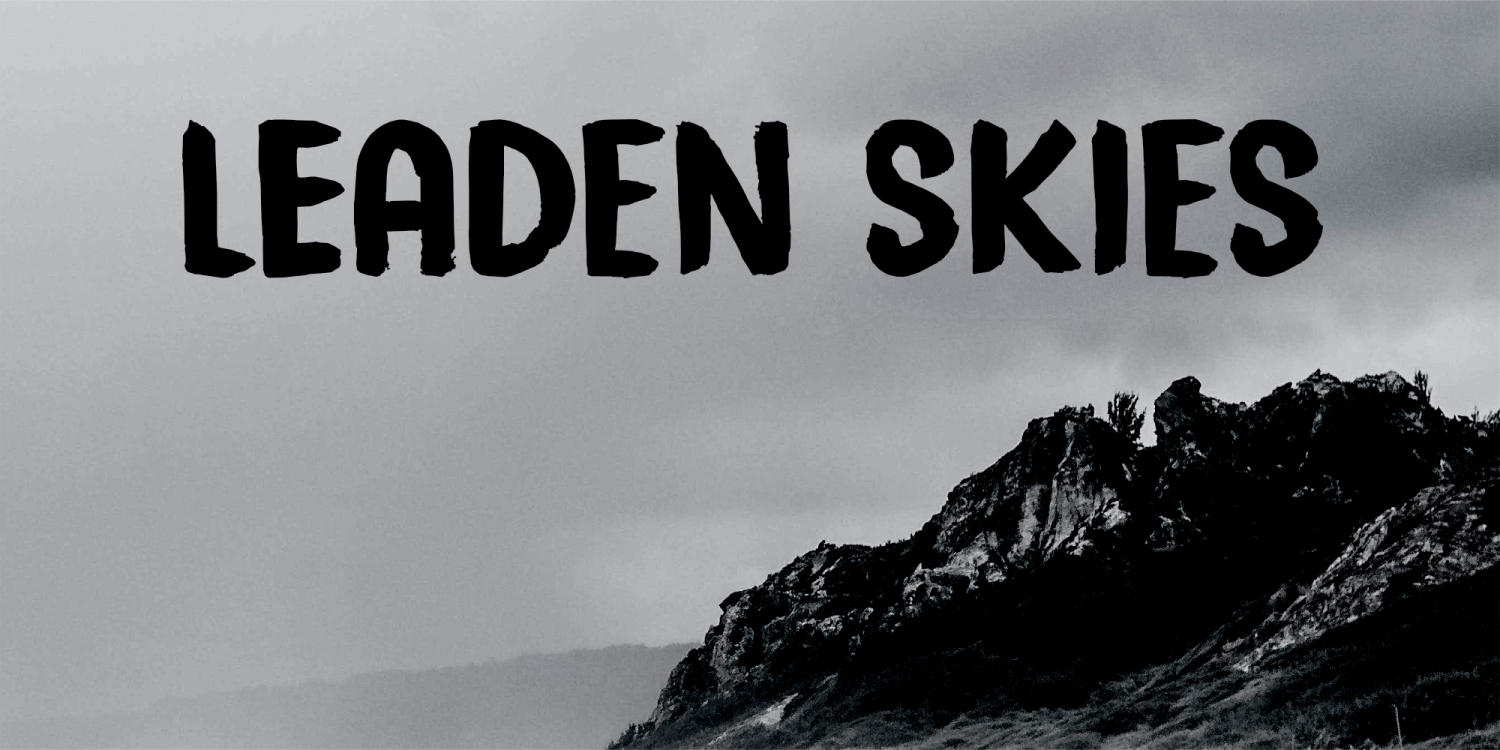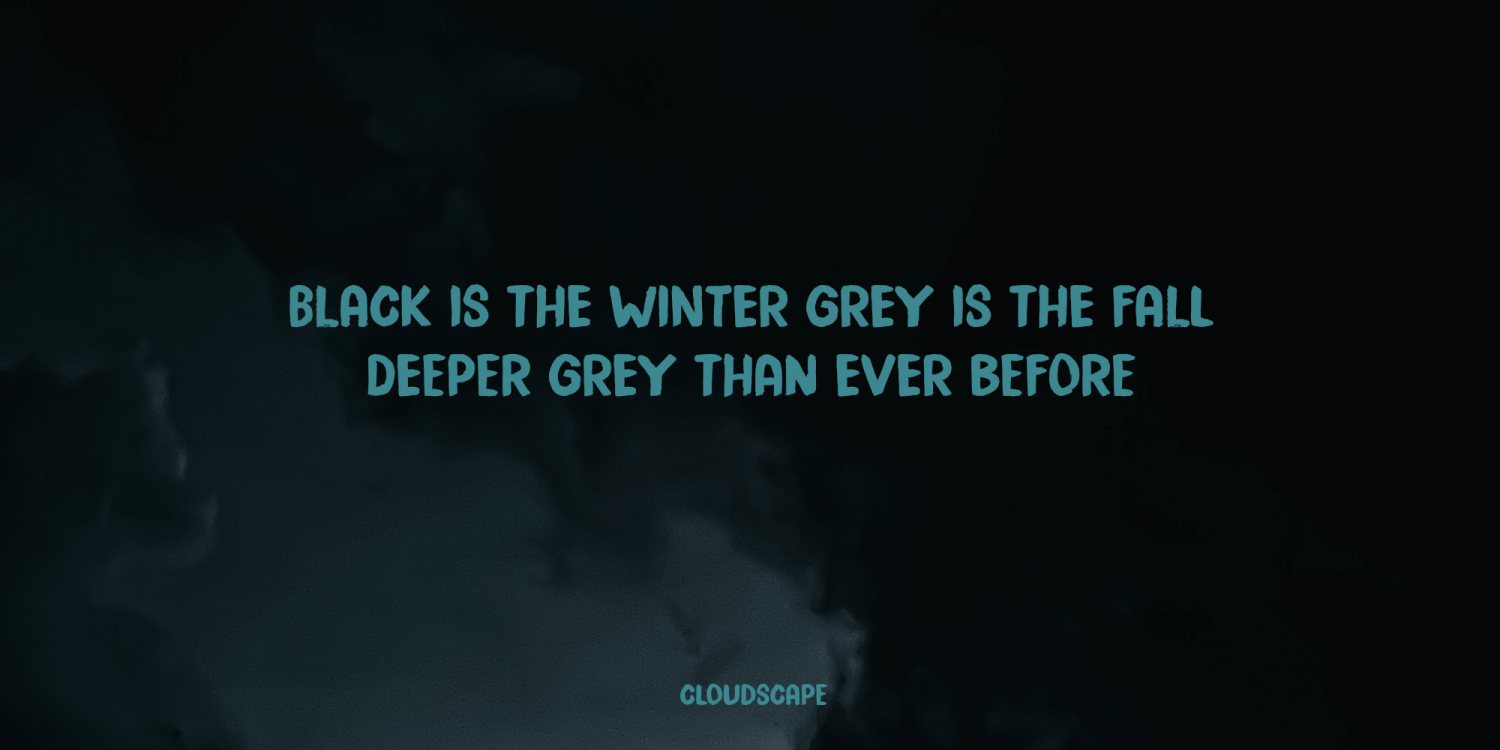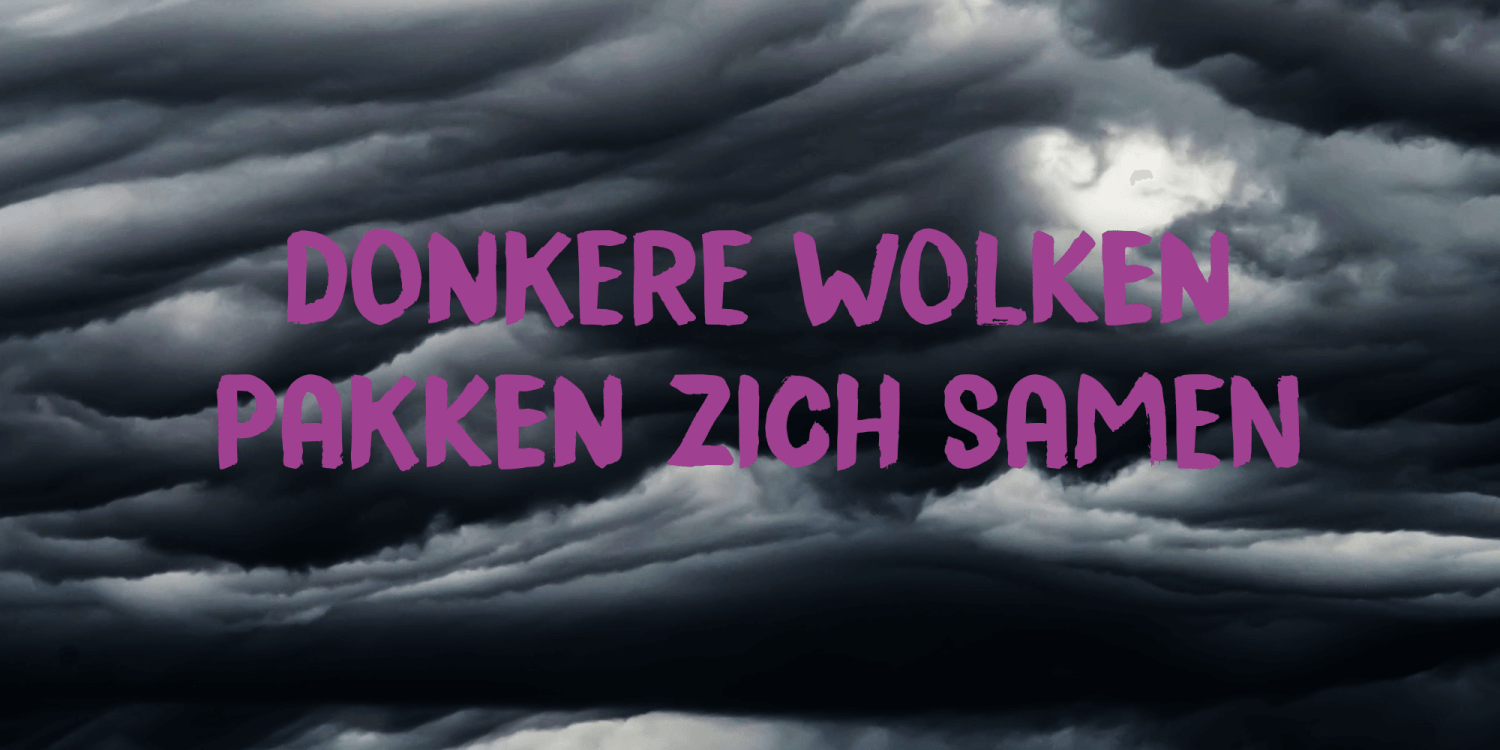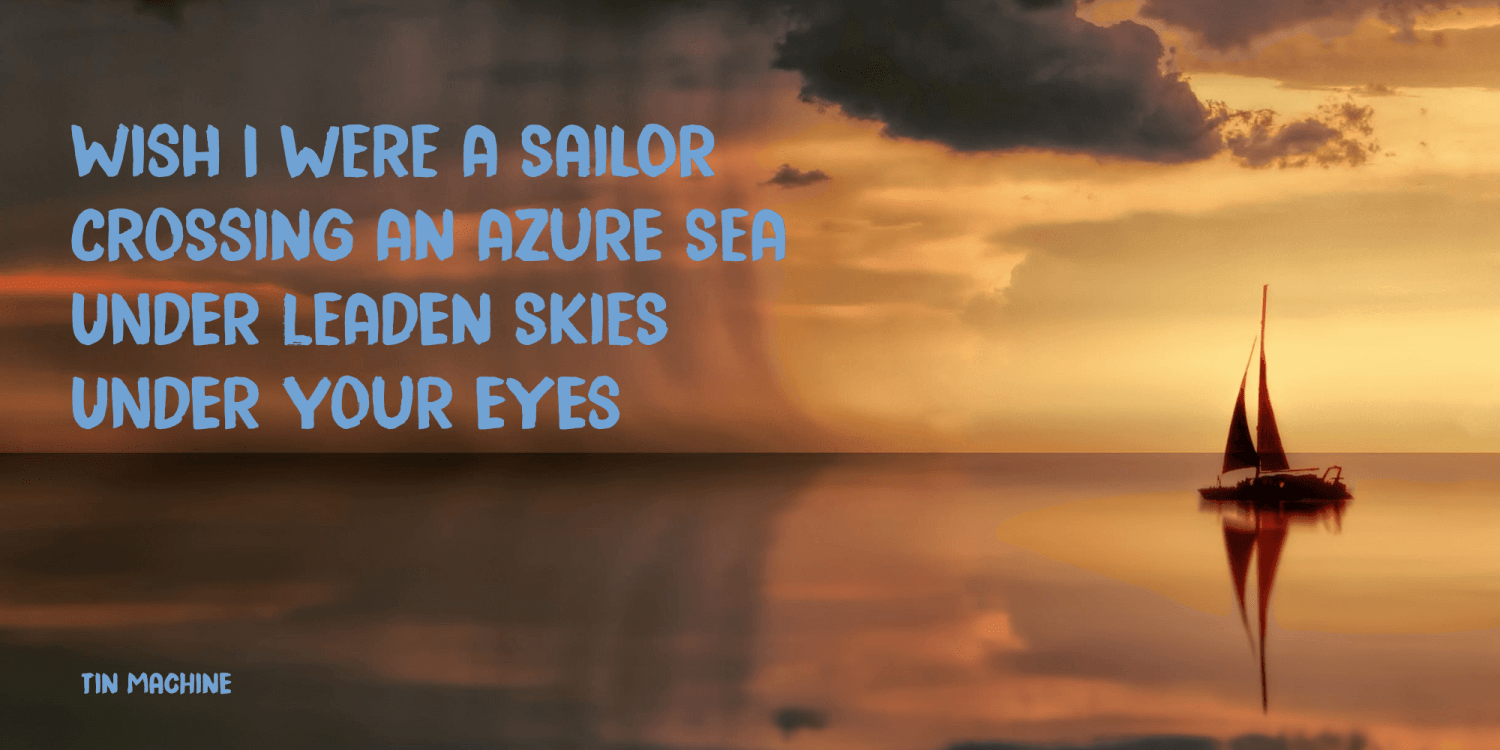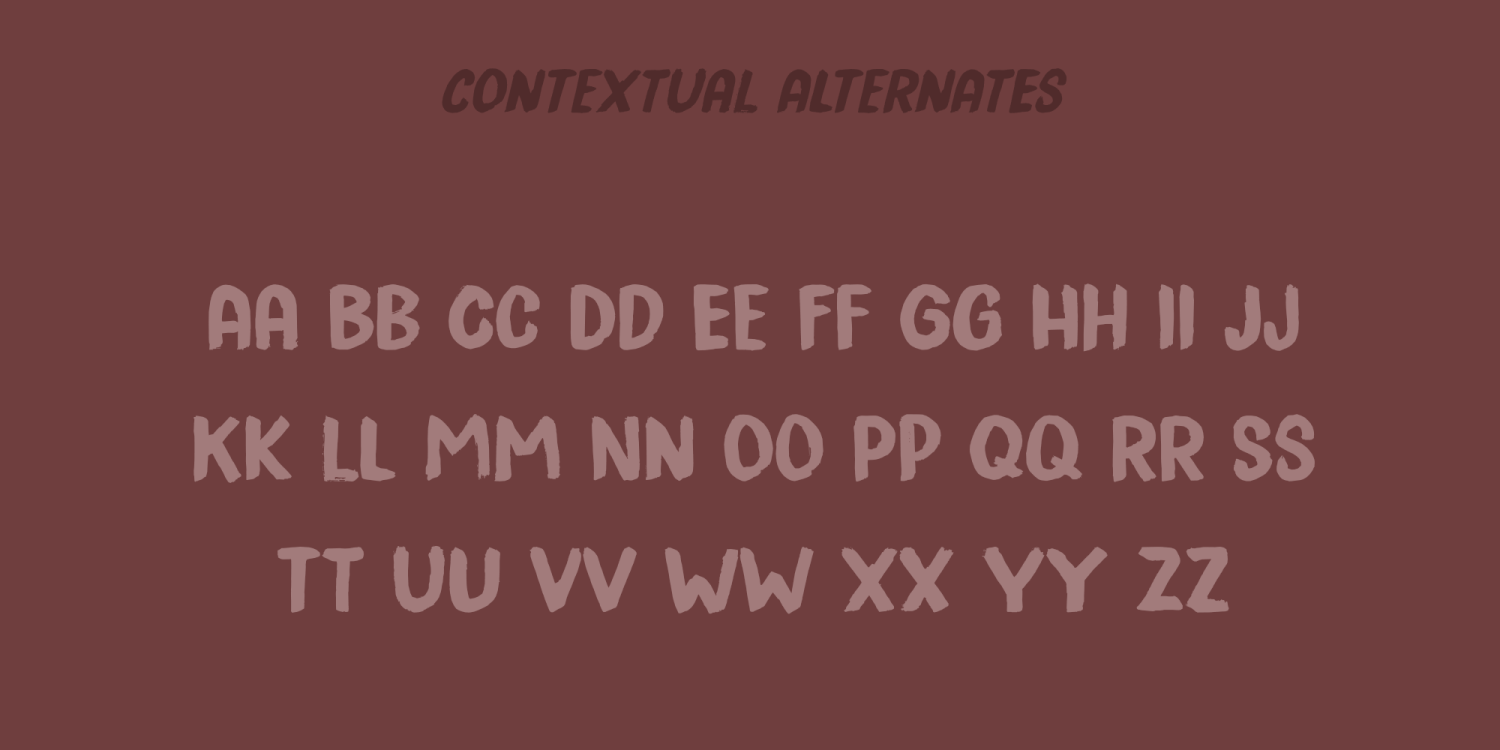
Leaden Skies
A ‘Leaden Sky’ is a dark grey sky without clouds. We don’t see too many of them here in Holland, as we usually have lots of clouds. Yesterday, however, the sky turned a sinister greyish green and it spewed out an an enormous amount of hailstones the size of walnuts.
Leaden Skies is a handmade, all caps display font. I made it with a brush and Chinese ink. It comes with extensive language support and a set of alternates for the lower case glyphs.